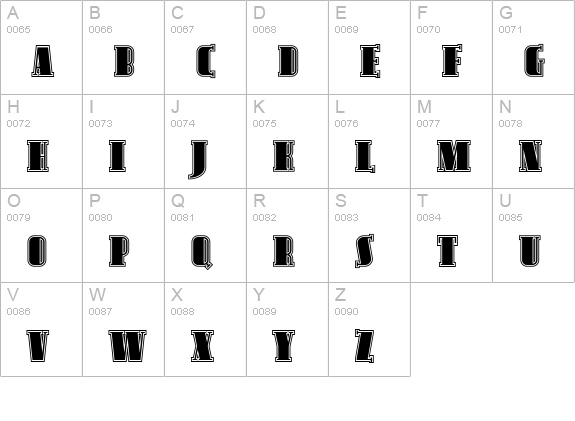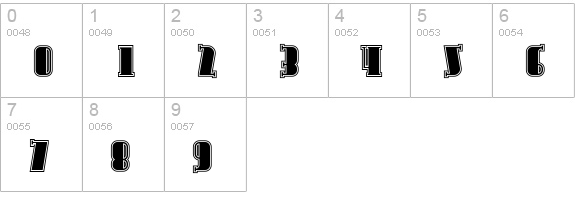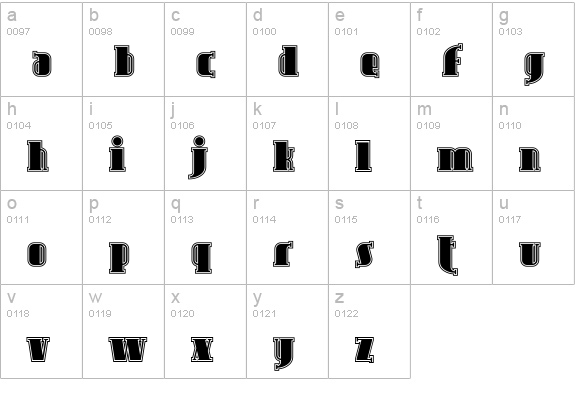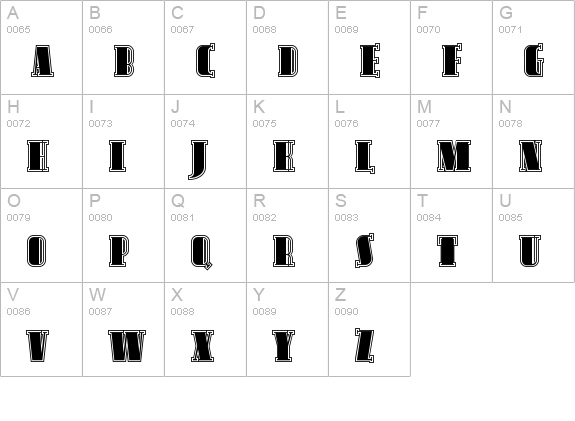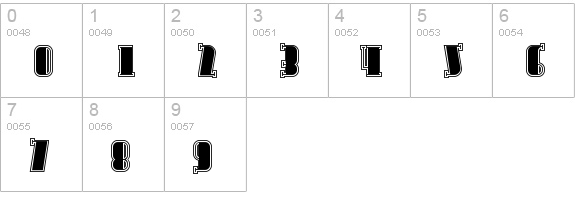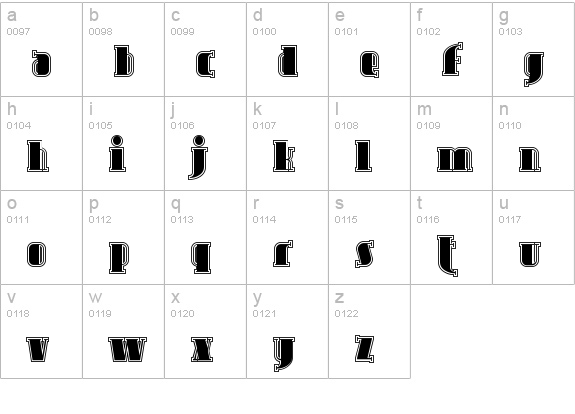
Avondale Inline font exudes elegance and sophistication with its sleek and modern design. This versatile typeface is perfect for adding a touch of class to any project, whether it be branding, advertising, or editorial design. The inline style of Avondale gives it a unique and eye-catching appearance that is sure to make a statement. Best of all, Avondale Inline font is available for free download at FontsMarket.com. This means you can easily access this stunning typeface and use it in your designs without any cost. Don't miss out on the opportunity to enhance your projects with the timeless beauty of Avondale Inline font. Download it today and elevate your design work to new heights!